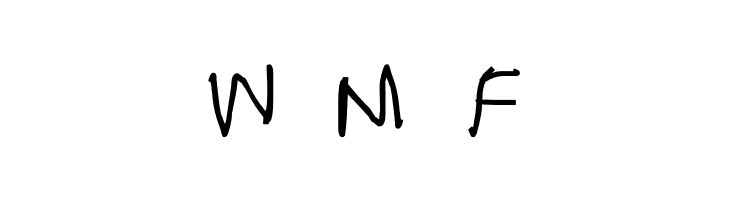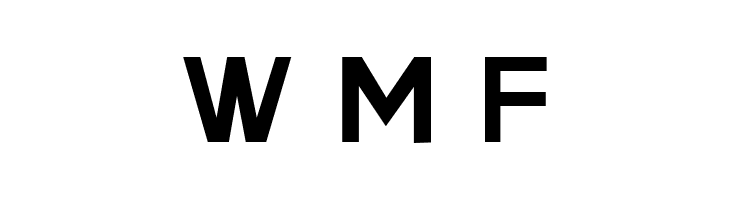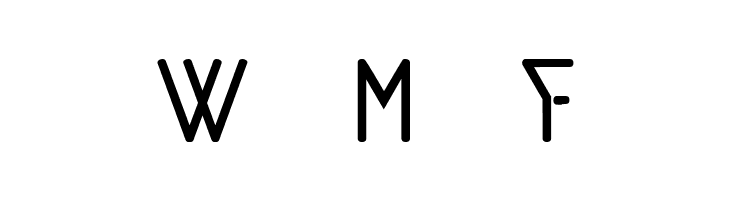
Miama Nueva Font
An elegant script font with flowing, cursive strokes and sophisticated design.
FederationBold Font
A bold, modern font with geometric shapes and consistent stroke width.
CounselorScript Medium Font
An elegant script font with medium weight and flowing, cursive style.
B Mitra Font
A Persian script font with elegant, flowing curves and a modern touch.
Thryomanes Normal Font
A classic serif font with elegant strokes and balanced proportions.
Byzantine-Normal Font
A modern font with angular and curved strokes, blending elegance with boldness.
Jera Sans JL Font
A bold, modern sans-serif font with geometric shapes and uniform stroke width.
Zipper blues Outline Font
A bold, geometric outline font with sharp angles and a modern look.
OPTISansSerifCondensedOne Font
Bold, condensed sans-serif font with high contrast and modern appeal.
Istok Web Regular Font
A modern, clean sans-serif font with excellent readability.
Vintage Font
A bold, robust font with thick strokes and slight curvature, ideal for headlines.
04b03rev Font
A pixelated, retro-style font with a blocky, geometric appearance.
Cat Font Font
A playful font featuring cat silhouettes integrated into each character.
Dekers_Bold Font
A modern, geometric font with clean lines and rounded edges.
MOMO Font
A playful font with characters designed as teddy bears, perfect for decorative use.
B Nazanin Bold Font
A bold, elegant font with strong strokes and smooth curves, offering a modern yet classic look.
CNC Vector Mirror Font
A geometric, industrial font with sharp, precise lines and uniform stroke width.
DS Podd Cyr Light Font
A futuristic, geometric font with sleek lines and a modern aesthetic.
Navine Demo SemiCondensed Font
A modern, semi-condensed font with clean lines and uniform stroke width.
Papercuts Font